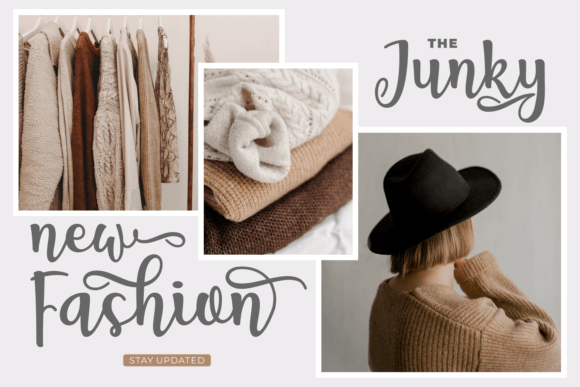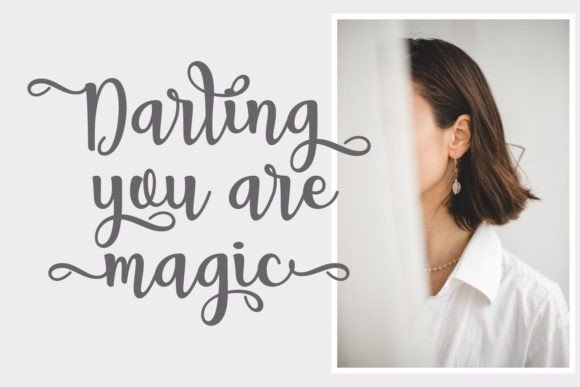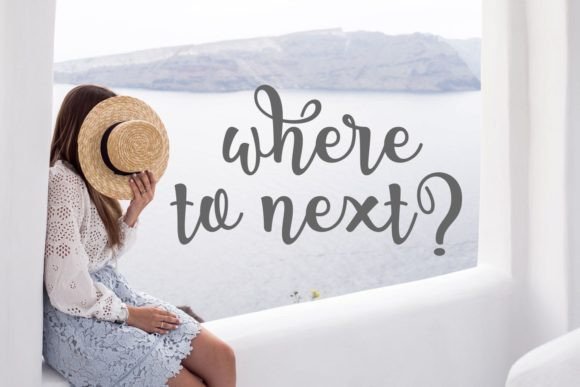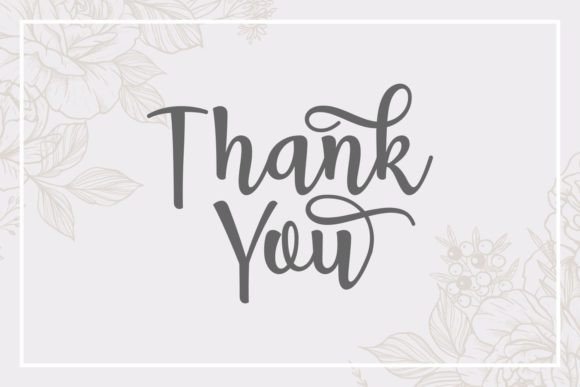
Atheny Font: Elevate Your Typography Designs with Elegance and Beauty
In the world of typography, a beautiful and elegant script font can make all the difference in creating stunning designs that capture the eye and convey a sense of sophistication. Introducing Atheny Font, a gorgeous typeface that is sure to add a touch of grace and beauty to any creation. Whether you’re a designer, crafter, or DIY enthusiast, Atheny Font is the perfect addition to your typography arsenal.
What Makes Atheny Font Special?
Atheny Font is a beautiful and elegant script font that boasts a range of characteristics that set it apart from other typefaces. Here are just a few reasons why Atheny Font is a must-have for designers and crafters:
- Elegant and Sophisticated: Atheny Font features a elegant and sophisticated design that is perfect for creating high-end typography designs. The font’s flowing lines and curves create a sense of movement and fluidity, making it ideal for designs that require a touch of elegance.
- PUA Encoded: Atheny Font is PUA (Private Use Area) encoded, which means that you can easily access all the glyphs and swashes with ease. This makes it simple to customize your designs and add unique touches to your typography.
- Versatile: Atheny Font is incredibly versatile and can be used on a wide range of projects, including invitations, logos, watermarks, greeting cards, business cards, branding projects, labels, and more.
Uses for Atheny Font
Atheny Font is perfect for a variety of design projects, including:
- Invitations: Create beautiful and elegant invitations for weddings, parties, and other special events with Atheny Font.
- Logos and Branding: Use Atheny Font to create stunning logos and branding materials that convey a sense of sophistication and elegance.
- Greeting Cards: Add a touch of elegance to your greeting cards with Atheny Font, perfect for special occasions like birthdays, holidays, and anniversaries.
- Business Cards: Create professional and stylish business cards with Atheny Font, perfect for networking and making a lasting impression.
- Labels and Packaging: Use Atheny Font to create beautiful and eye-catching labels and packaging for your products.
Tips for Using Atheny Font
Here are a few tips for getting the most out of Atheny Font:
- Experiment with Different Sizes: Atheny Font looks great in a variety of sizes, so don’t be afraid to experiment and find the perfect size for your design.
- Play with Swashes and Glyphs: With Atheny Font’s PUA encoding, you can easily access a range of swashes and glyphs to add unique touches to your designs.
- Pair with Other Fonts: Atheny Font pairs beautifully with other fonts, so try combining it with a sans-serif font for a striking contrast.
Atheny Font is a beautiful and elegant script font that is sure to elevate your typography designs to the next level. With its elegant design, PUA encoding, and versatility, Atheny Font is the perfect addition to any designer’s or crafter’s toolkit. Whether you’re creating invitations, logos, greeting cards, or labels, Atheny Font is the perfect choice for adding a touch of grace and beauty to your designs. So why wait? Try Atheny Font today and see the difference it can make in your typography designs!